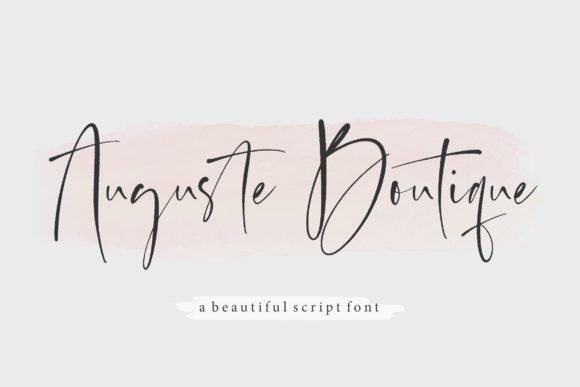
Unleash the Artistry with Auguste Boutique Font
Have you ever stared at a blank page, waiting for the perfect idea to strike? The moment when the creative spark ignites, and your imagination runs wild? That’s when the magic happens, and your design begins to take shape. For those special moments, you need a font that can elevate your vision and bring it to life. Enter the enchanting Auguste Boutique Font – a script font that will transport your designs to new heights.
This stunning font is more than just a pretty face; it’s a valuable tool in every designer’s arsenal. With its elegant and sophisticated style, Auguste Boutique Font is perfect for adding a touch of sophistication to your next project. Whether you’re working on a wedding invitation, a fashion brand’s logo, or a romantic novel’s cover, this font will be a wonderful asset to your font library, making your creations truly unforgettable.
Auguste Boutique Font Key Features
- Font Family: Auguste Boutique Font, a luxurious script font designed for high-end branding and packaging.
- Unique Characteristics: Distinctive, flowing script style with elegant flourishes and subtle variations in letterform design, perfect for creating a luxurious and sophisticated visual identity.
Auguste Boutique Font Review
Auguste Boutique Font is a charming script font that exudes elegance and sophistication. It works well for creating a high-end, luxurious feel in designs ✨. Here are some of its strengths:
- Unique letterforms: The font’s distinctive letterforms give it a one-of-a-kind charm, making it stand out in any design.
- High-end feel: Auguste Boutique Font’s refined and polished look is perfect for luxury brands, high-end products, and premium services.
- Good for invitations: The font’s elegant and sophisticated look makes it an excellent choice for invitations, especially for weddings and other special occasions.
However, like any font, Auguste Boutique Font also has its limitations ⚠️:
- Limited readability: The font’s ornate details can make it difficult to read, especially at small sizes.
- Not suitable for body text: Due to its ornate nature, Auguste Boutique Font is best used for headlines and titles rather than body text.
- May require adjustments: Depending on the design, the font may require some adjustments to ensure it looks its best.
In conclusion, Auguste Boutique Font is a beautiful and elegant script font that works well in certain situations. While it has some limitations, it’s perfect for creating a luxurious and high-end feel in designs. With some careful use and adjustments, it can be a valuable addition to any designer’s toolkit.
For the best results, use the Auguste Boutique Font in combination with elegant and minimalist designs. It is particularly suitable for creating luxury brand identities, fashion labels, and high-end product packaging. To get the most out of the font, use it in conjunction with rich colors and subtle textures.